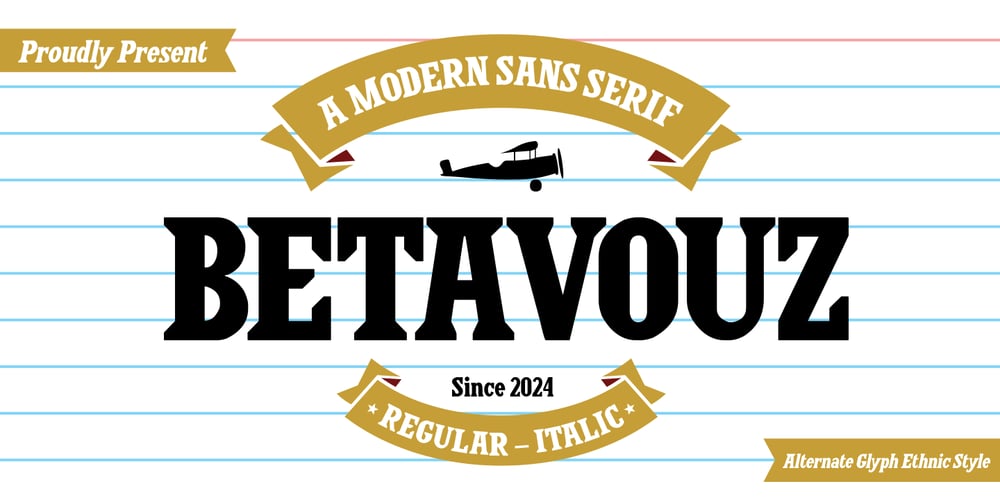
Betavouz Font Family was designed by Muhammad Nazarudin and published by Niznaztype. Betavouz contains 2 styles and family package options. Introducing a new modern sans serif typeface. I give it the name isBetavouz. Betavouz suitable for logo designs, headline, tagline orothers. This font also suitable for any themes such as sport, music,school, automotive etc. Betavouz save in two styles, regular anditalic.Betavouz consist of :- Uppercase- Lowercase- Numeral and punctuation- Multilingual Language- Alternate Glyph with ethnic stylePlease, enjoy it with Betavouz, new san serif typeface.If you have any question, please send to emnazar2009@gmail.comThank a lot